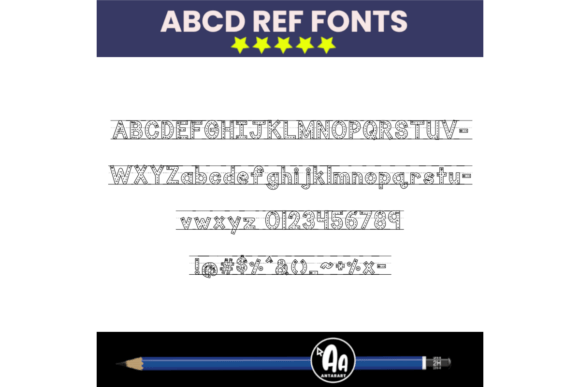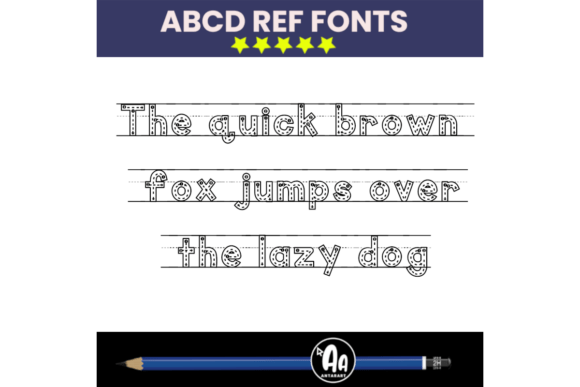
Introducing the Dashed Outlined Arrows Lined Font: A Game-Changer for Early Learners
Are you a teacher, educator, or parent looking for a reliable and engaging way to teach early learners the fundamentals of alphabet and number formation? Look no further than the Dashed Outlined Arrows Lined Font, a clean and teacher-ready tracing font designed specifically for preschool, kindergarten, and early elementary learners.
What is the Dashed Outlined Arrows Lined Font?
This innovative font features outlined, dashed (dotted) lined alphabet and number glyphs, accompanied by numbered arrows and lined guides, making it perfect for printed worksheets, digital tracing slides, handwriting centers, and fine-motor practice. The font is carefully crafted to ensure consistent and easy-to-teach alphabet and number formation, making it an ideal tool for educators and parents.
Key Features of the Dashed Outlined Arrows Lined Font
- Outlined and Dashed Lines: The font features bold outlines and dashed lines, providing a clear and visually appealing guide for early learners to practice their handwriting.
- Numbered Arrows: The inclusion of numbered arrows helps children understand the correct sequence and direction of letter and number formation.
- Lined Guides: The font includes lined guides, ensuring that children can practice writing within a structured and organized framework.
- Uppercase and Lowercase Letters: The font includes both uppercase and lowercase letters, making it perfect for teaching alphabet formation.
Benefits for Early Learners
The Dashed Outlined Arrows Lined Font offers numerous benefits for early learners, including:
- Improved Handwriting Skills: The font helps children develop muscle memory and fine-motor skills, essential for confident handwriting.
- Enhanced Alphabet and Number Formation: The font ensures consistent and accurate alphabet and number formation, laying the foundation for future academic success.
- Boosted Confidence: The clear and structured guides provided by the font help children build confidence in their handwriting abilities.
Applications in Education
The Dashed Outlined Arrows Lined Font is versatile and can be used in various educational settings, including:
- Preschool and Kindergarten: The font is perfect for introducing young learners to alphabet and number formation.
- Early Elementary Education: The font is suitable for early elementary learners, including those with ESL and special education needs.
- Handwriting Centers: The font can be used to create engaging and interactive handwriting centers.
- Digital Tracing Slides: The font is ideal for creating digital tracing slides, perfect for online learning and practice.
Using the Dashed Outlined Arrows Lined Font
Educators and parents can use the Dashed Outlined Arrows Lined Font to create a range of engaging and interactive learning materials, including:
- Printed Worksheets: Create custom worksheets for morning work, intervention, homework, or printable practice pages.
- Digital Practice Pages: Design interactive digital practice pages for online learning and practice.
- Handwriting Centers: Set up handwriting centers with the font, providing children with a structured and engaging handwriting experience.
The Dashed Outlined Arrows Lined Font is a valuable resource for educators and parents seeking to teach early learners the fundamentals of alphabet and number formation. With its clean design, outlined and dashed lines, numbered arrows, and lined guides, this font provides a comprehensive and engaging handwriting experience. Whether used in preschool, kindergarten, or early elementary education, this font is sure to become a trusted tool in your teaching arsenal.